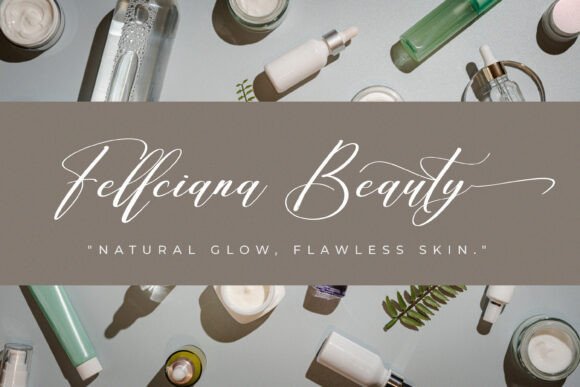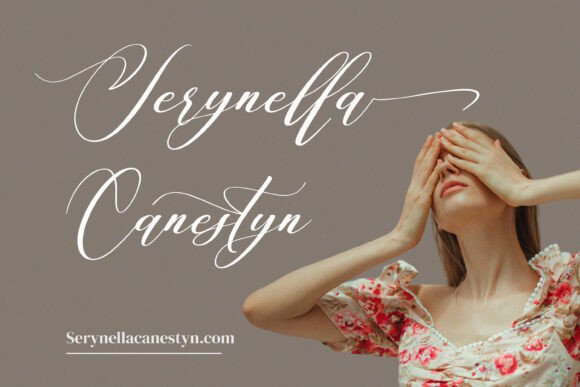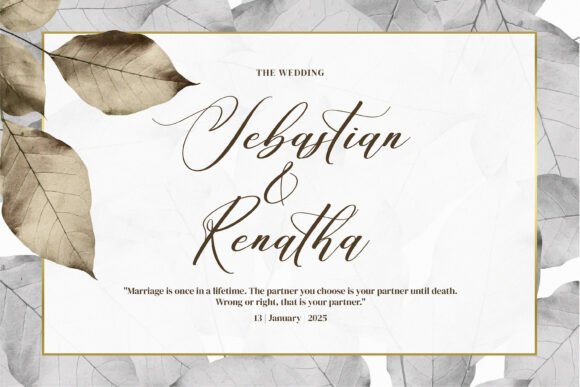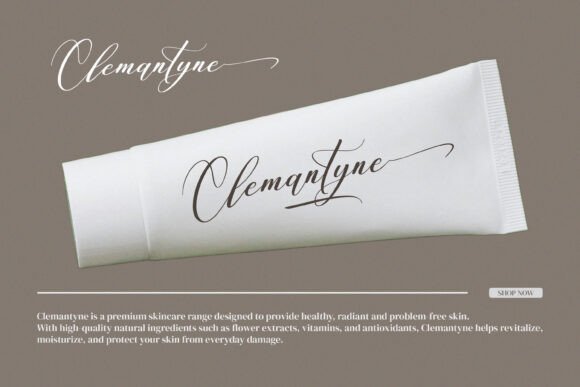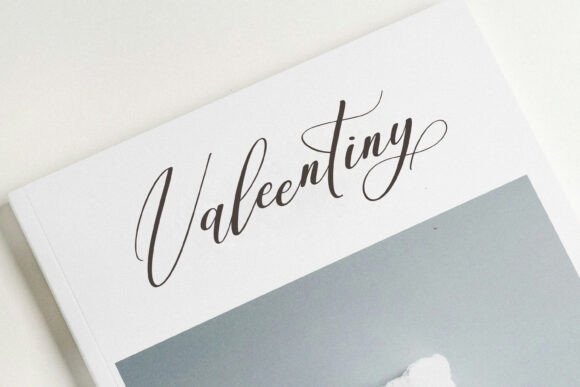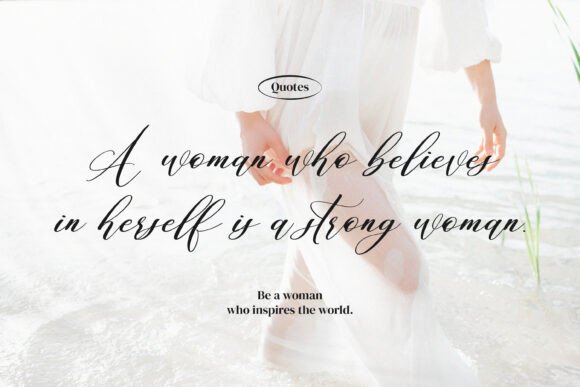
The Elusive Perfect Font: My Encounter with Arabella Forteny
Ah, the quest for the perfect font. We’ve all been there – scrolling through endless font libraries, trying to find that one magical typeface that brings our design vision to life. I recall a particularly frustrating project where I was tasked with creating elegant wedding invitations. My client wanted something sophisticated, yet personal. I must have tried a dozen fonts before I stumbled upon Arabella Forteny. And just like that, my search was over.
A First Impression: What Makes Arabella Forteny Special
Arabella Forteny is a beautiful, modern calligraphy font that exudes elegance and sophistication. Its smooth, handwritten style gives any design a refined, artistic feel. This font is perfect for a variety of creative projects, including invitations, logos, and more. But what truly sets it apart?
- ✨ Elegant and flowing letters that add a touch of sophistication to any design
- ✅ Smooth, handwritten style that’s perfect for creative projects
- 💫 Highly versatile – works well for both digital and print designs
- 🎨 Great for designs that require a personal, artistic touch
- 🤔 May not be the best fit for very large or very small text sizes
- ⚠️ Some users may find the font a bit too ornate for certain projects
- Experiment with OpenType features, such as ligatures and stylistic alternates, to add more personality to your design
- Take advantage of OpenType features, such as glyphs and stylistic alternates, to add more depth to your design
- Use the font to create beautiful headings, invitations, or certificates
The Story Behind Arabella Forteny
While the true story behind Arabella Forteny may be unknown, it’s easy to imagine that it was created by a designer with a passion for elegant, handwritten scripts. Perhaps the designer was inspired by the flowing letters of ancient calligraphy, or maybe they simply wanted to create a font that would add a touch of sophistication to any design. Whatever the inspiration, Arabella Forteny is a true gem.
Q: What type of projects is Arabella Forteny best suited for?
A: Arabella Forteny is perfect for designs that require a touch of elegance and sophistication, such as invitations, logos, and creative projects.
Q: Can I use Arabella Forteny in digital designs?
A: Yes, Arabella Forteny works well in both digital and print designs. However, be sure to test the font at different sizes to ensure that it looks great in your design.